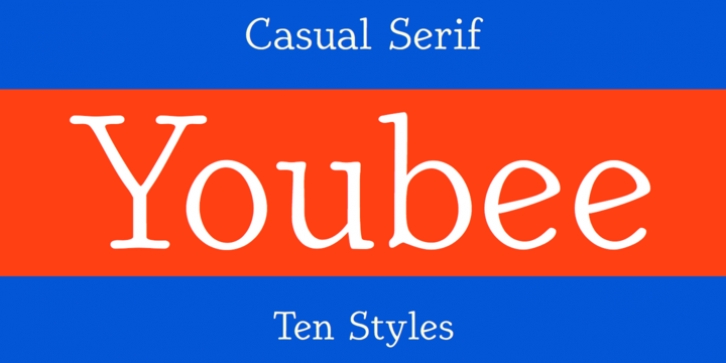
Youbee was designed by Robert Schenk and published by Ingrimayne Type. Youbee contains 10 styles and family package options.
Youbee or UB stands for ultimate blend because this font was created by blending four very different typefaces that I had designed. It works well as a semi-informal text face, but suffers at larger point sizes. The four typefaces from which Youbee was derived are slight modifications of Euroika, Ingriana, BetterTypeRight, and KampFriendship.
Youbee Light·
Youbee Light Italic·
Youbee Regular·
Youbee Italic·
Youbee SemiBold·
Youbee SemiBold Italic·
Youbee Bold·
Youbee Bold Italic·
Youbee Shadow·